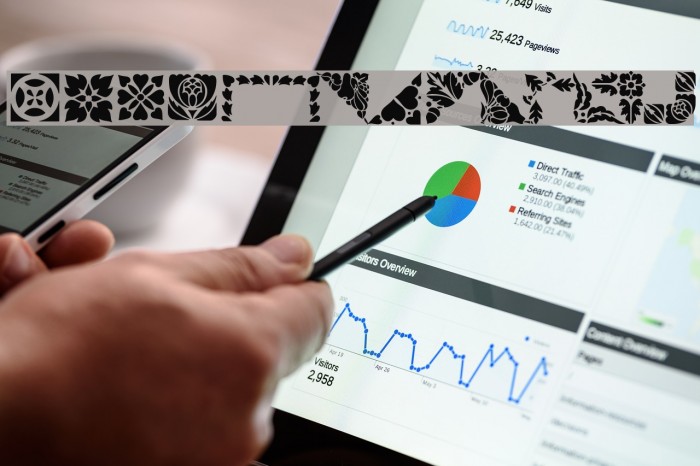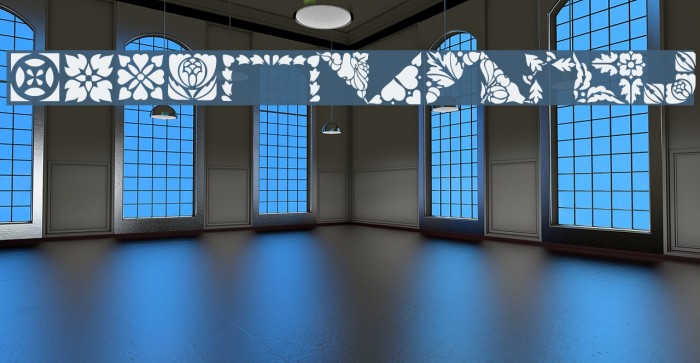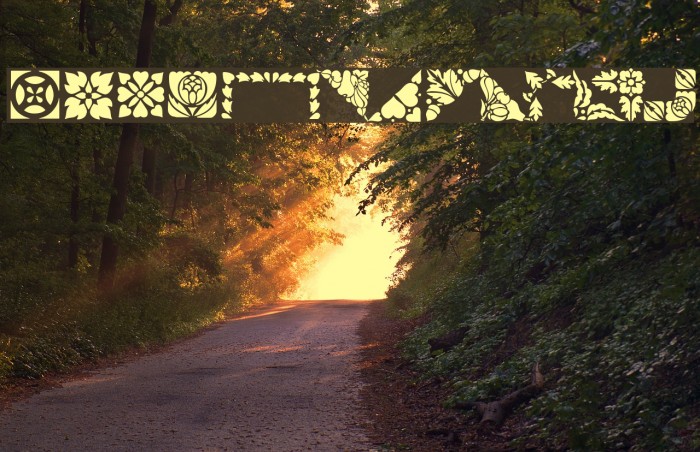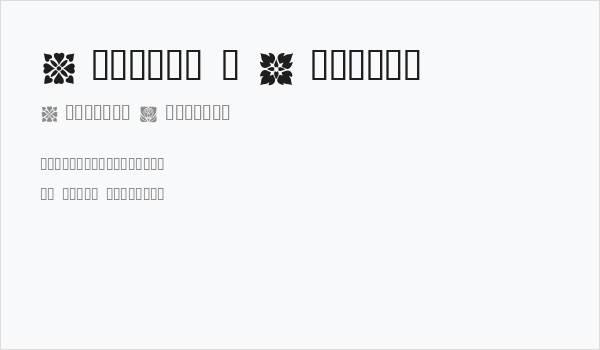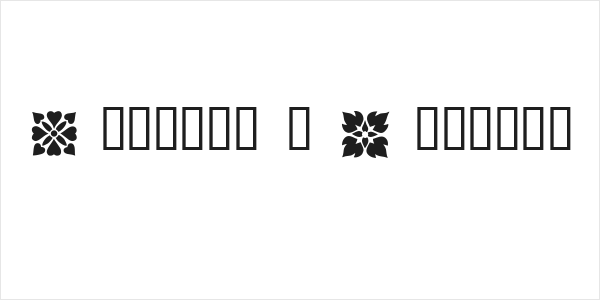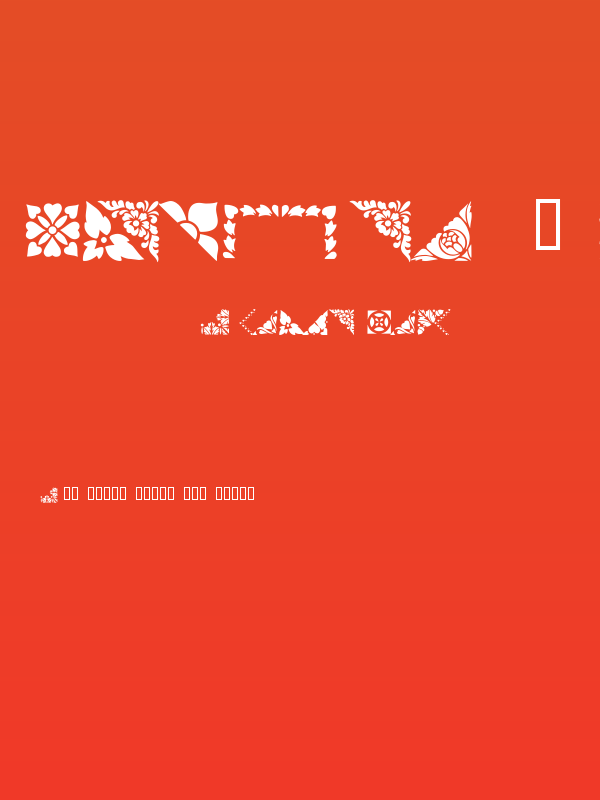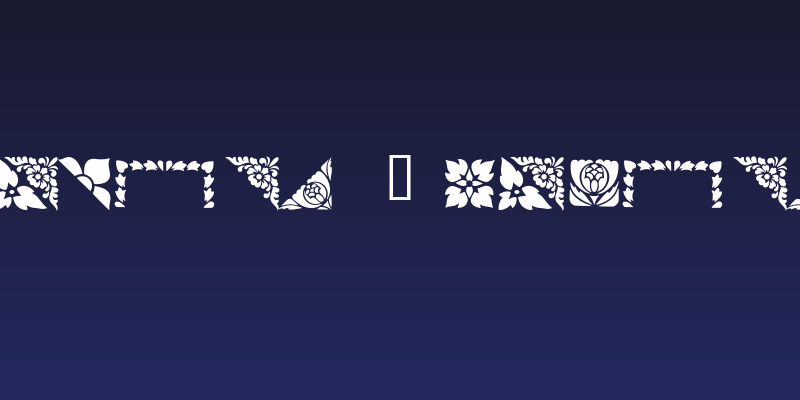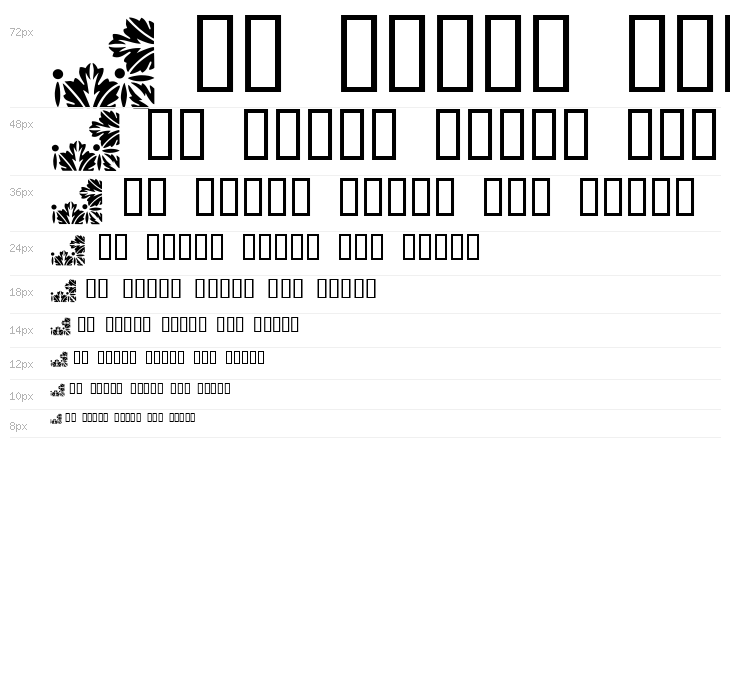
Corners & Borders Font
Corners & Borders Description
This is a decorative font featuring intricate floral and geometric patterns within each character. The design incorporates a variety of motifs, including leaves, flowers, and abstract shapes, creating a visually rich and ornate appearance. Each letter is uniquely crafted, making it ideal for artistic and creative projects. The font's bold outlines and detailed interiors give it a striking presence, suitable for use in designs that require a touch of elegance and sophistication. The characters are evenly spaced, ensuring readability while maintaining their decorative appeal.
| Proposed Projects | Ideal for wedding invitations, greeting cards, decorative posters, and artistic branding. |